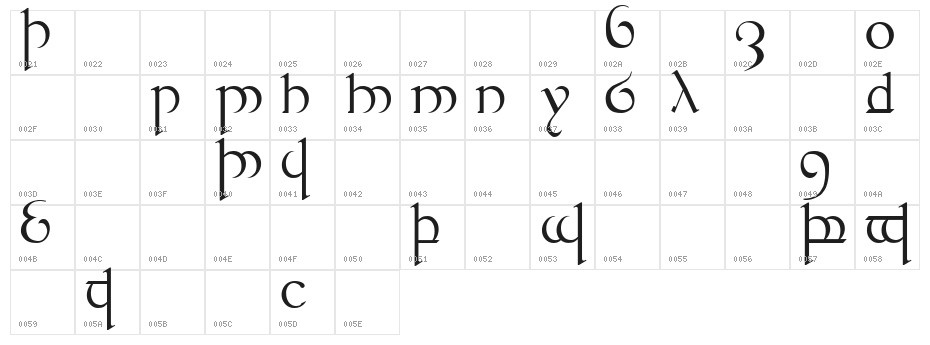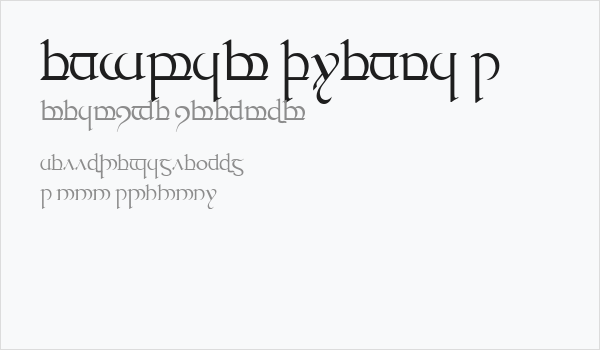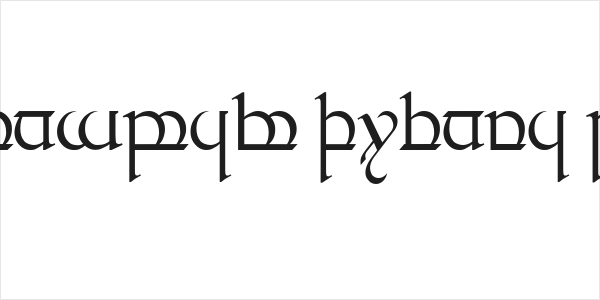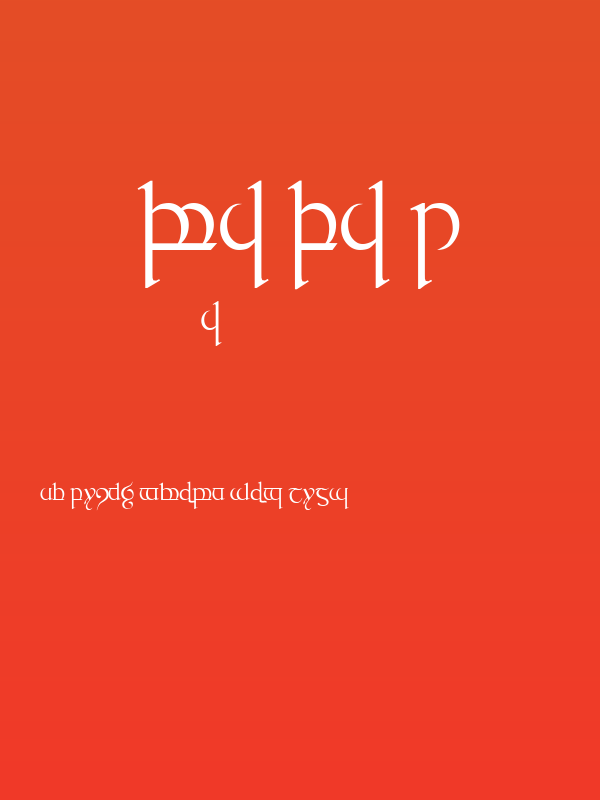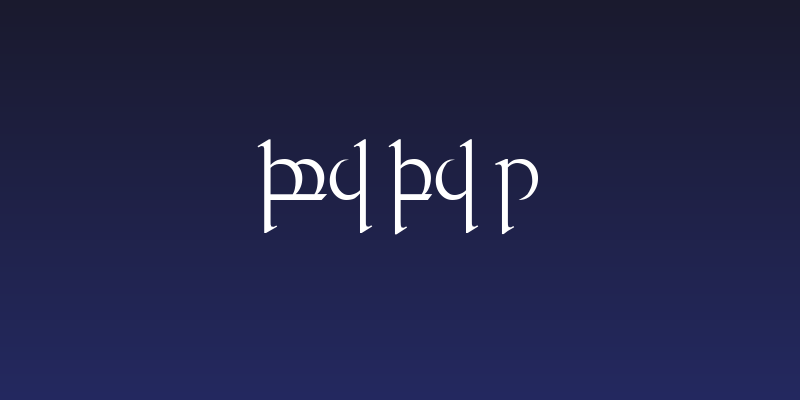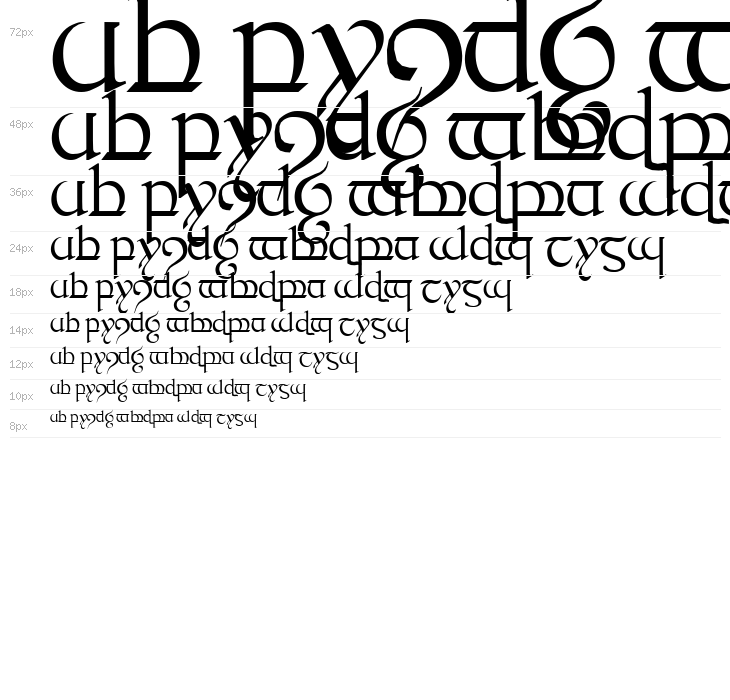
Tengwar Quenya 1 Font
Tengwar Quenya 1 Description
This font is a beautifully crafted script that draws inspiration from the Elvish languages, featuring elegant, flowing lines and intricate curves. The characters are designed with a high level of detail, showcasing a unique blend of sharp angles and smooth, rounded forms. The overall appearance is both mystical and sophisticated, making it ideal for projects that require a touch of fantasy or elegance. The font's distinct style is reminiscent of ancient scripts, yet it maintains a modern readability. Its artistic flair is evident in the way each letter seamlessly connects with the next, creating a harmonious and fluid text flow. This font is perfect for creative projects that aim to evoke a sense of wonder and enchantment.
Overall StyleFantasy, Elegant